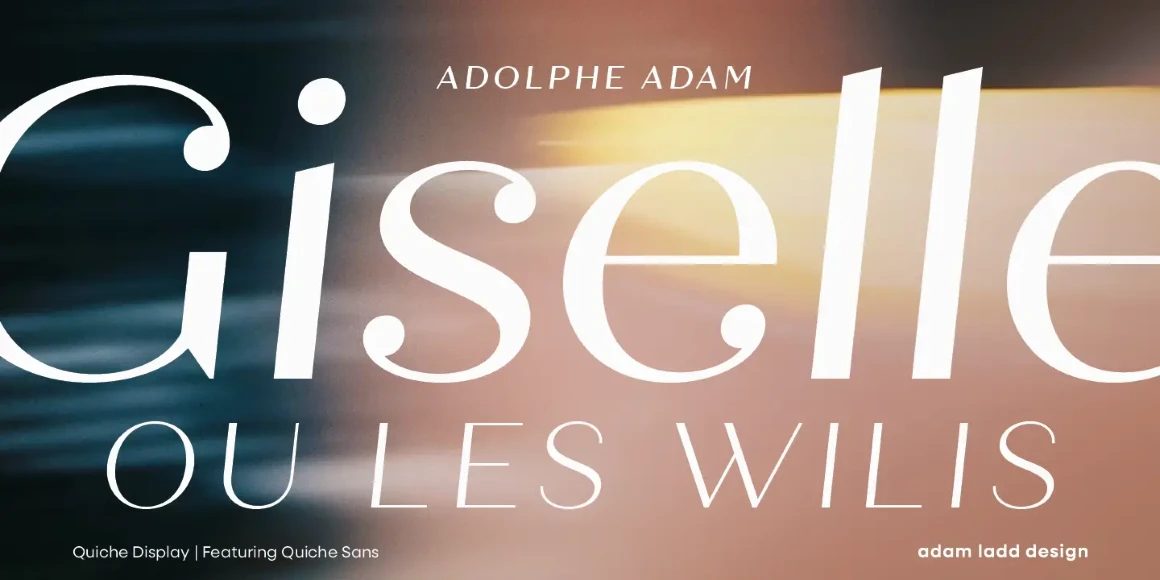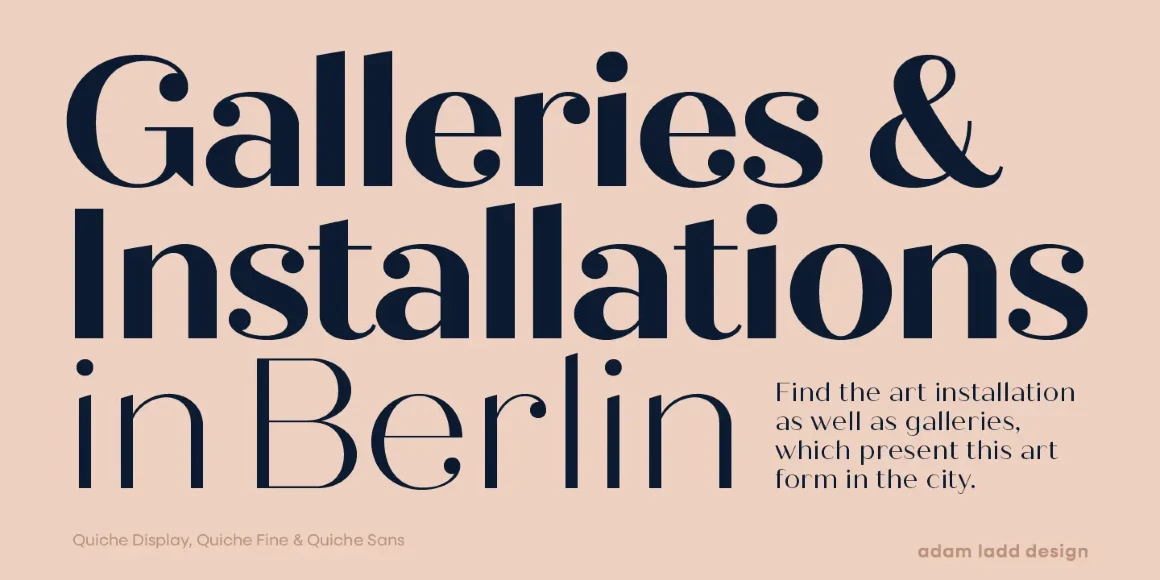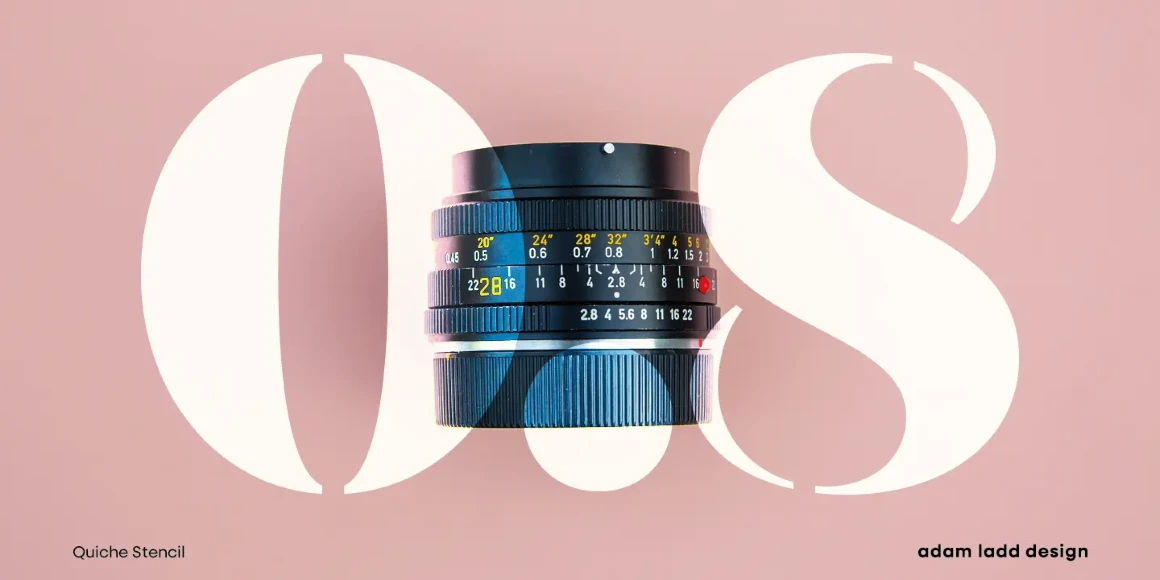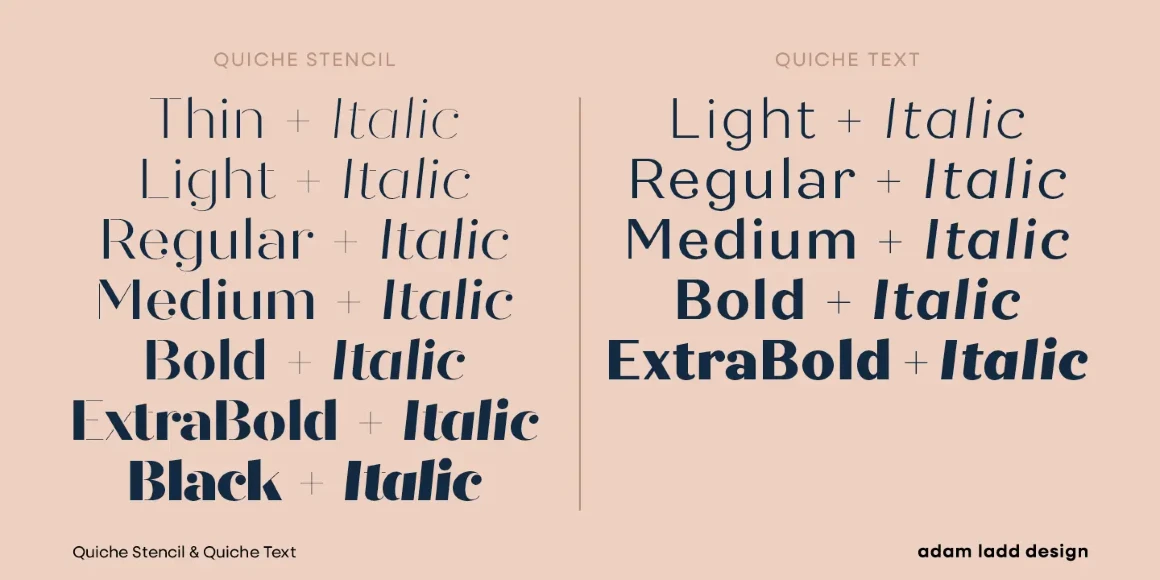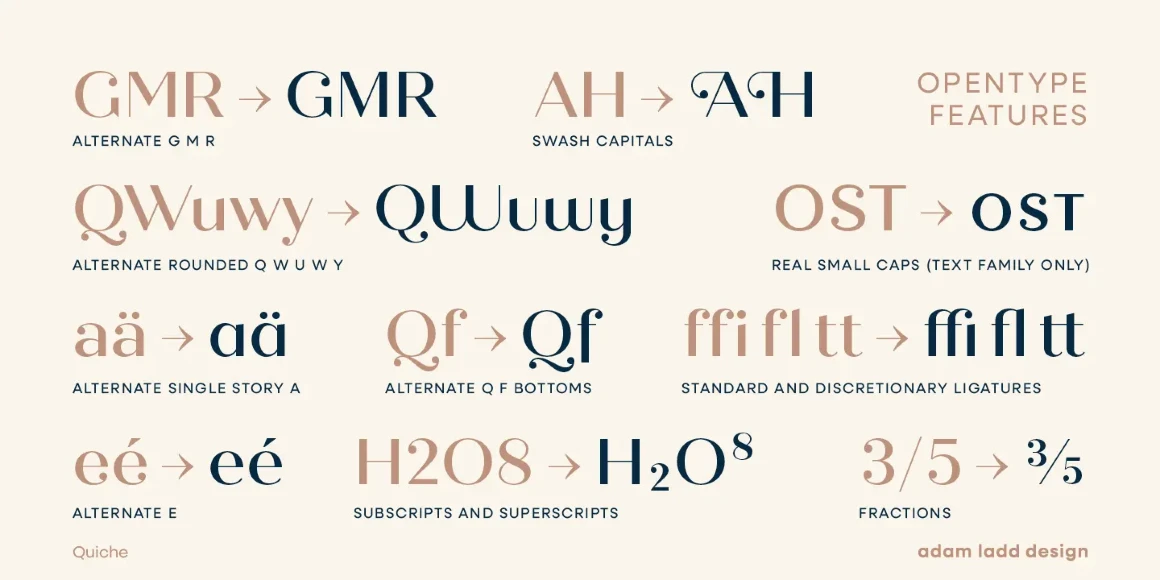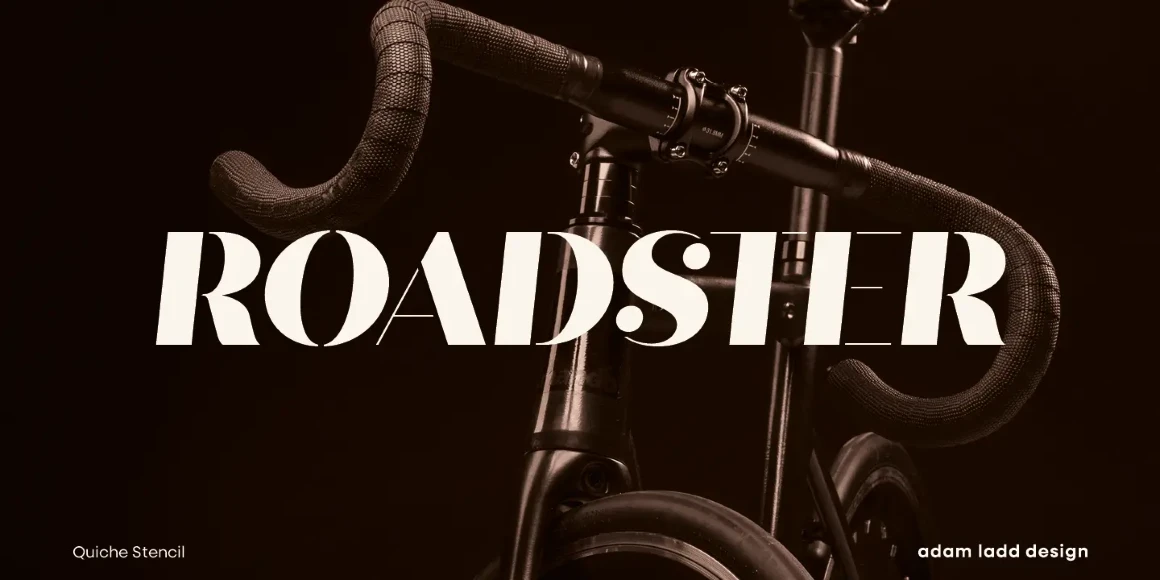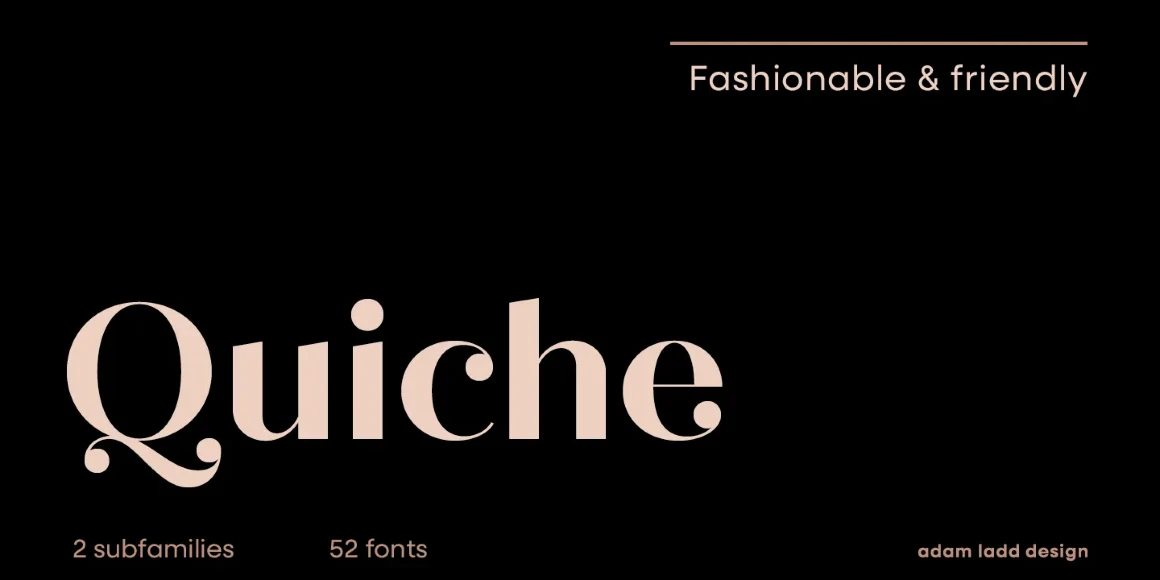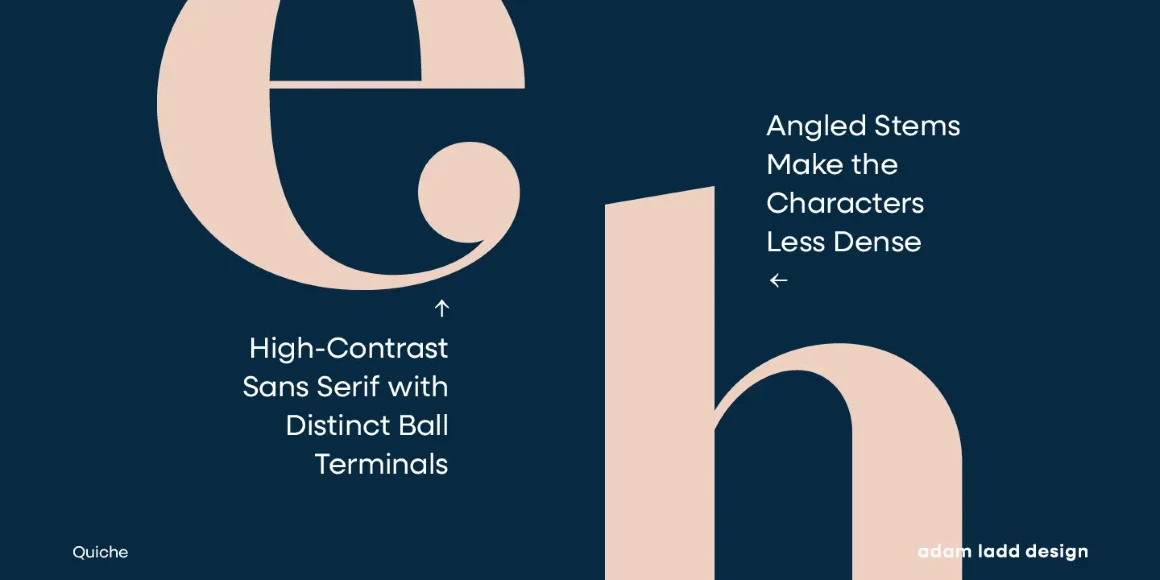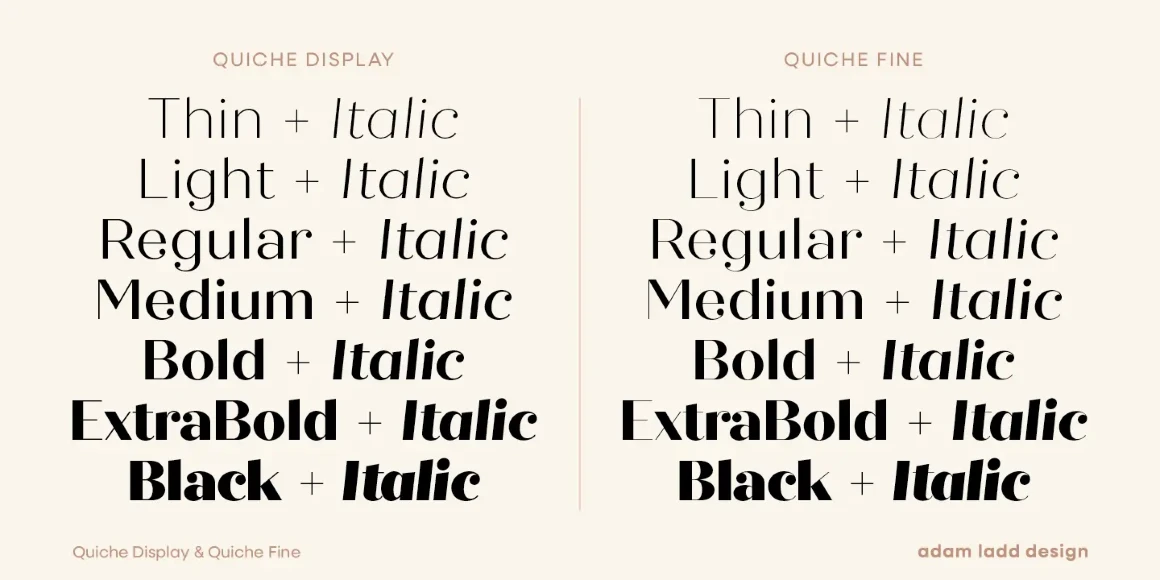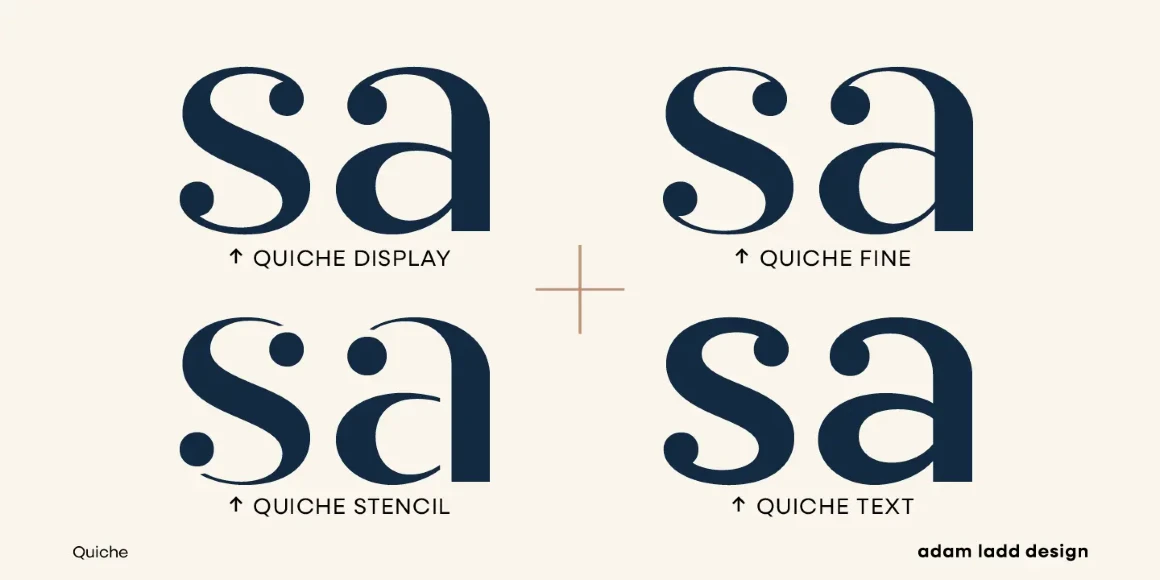
Quiche
By Adam Ladd
Quiche is a high-contrast sans featuring ball terminals and angled stems. The design is influenced by the Didone genre, characterized by its elegance and extreme contrast. But with the serifs removed, it becomes uniquely modern. Quiche Display, Fine, or Stencil are ideal in dramatic proportions. Quiche Text goes to work for quotes and subheads. This 52-style superfamily is a complete branding suite. The 4 subfamilies — Display, Fine, Stencil, and Text — were created to work harmoniously together.